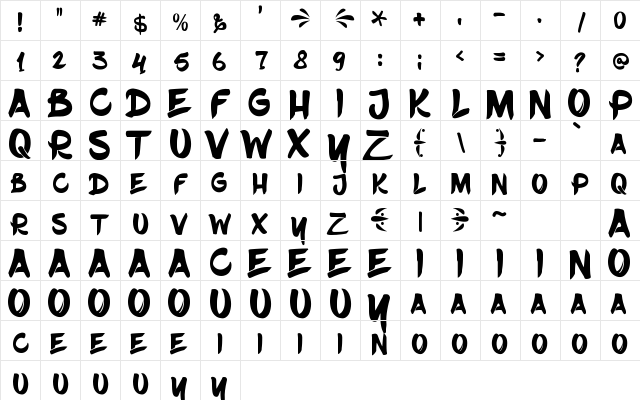
Hello Pinky Regular
Design Context for Hello Pinky Typeface
Hello Pinky is a composed and adaptable typeface that performs quietly and consistently across a wide range of design contexts.